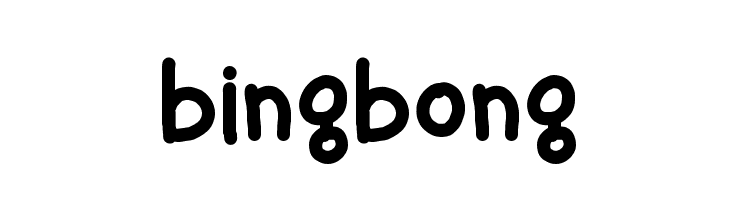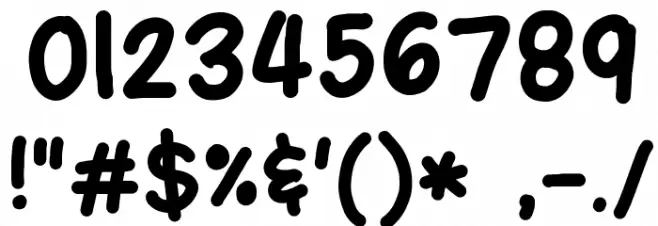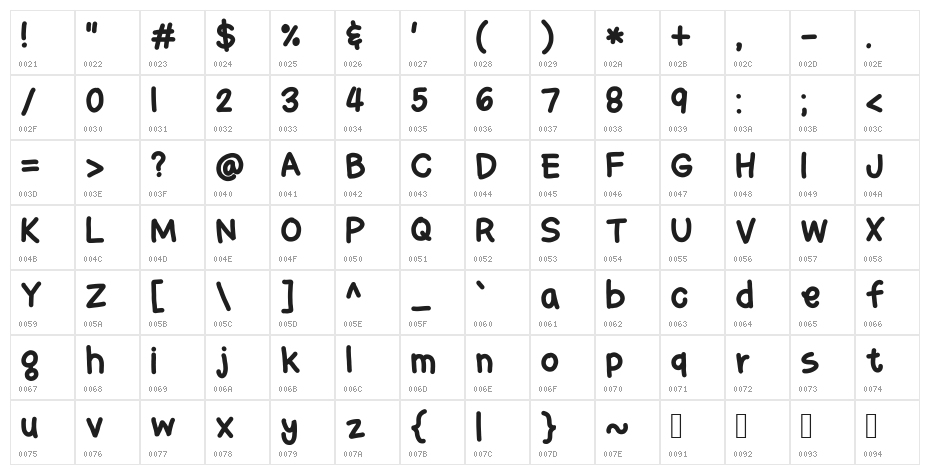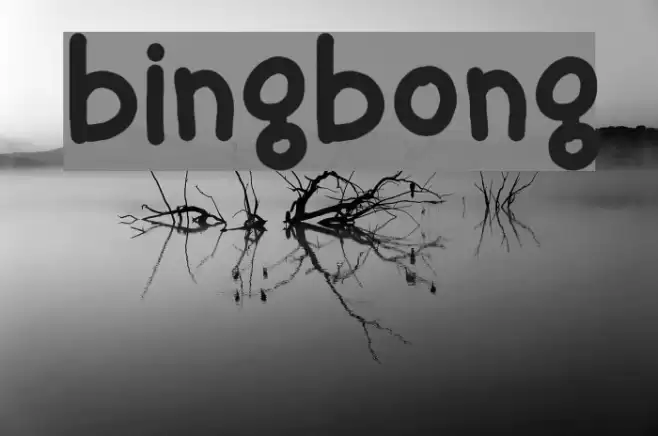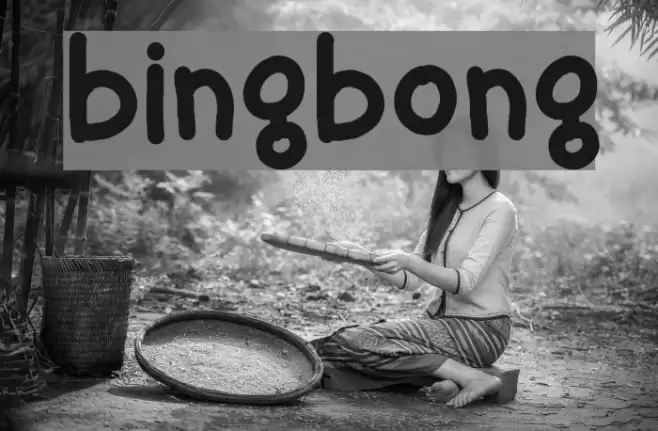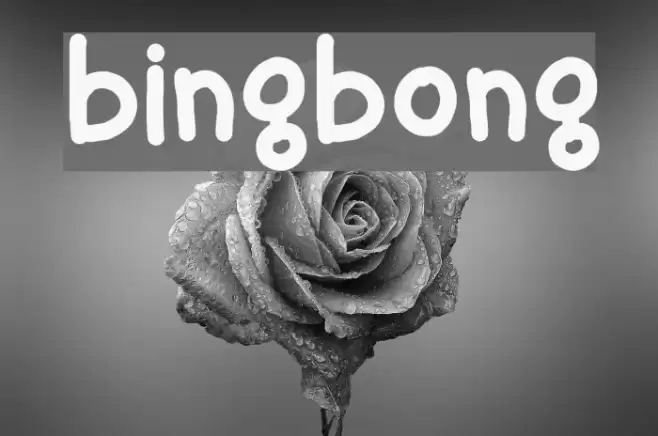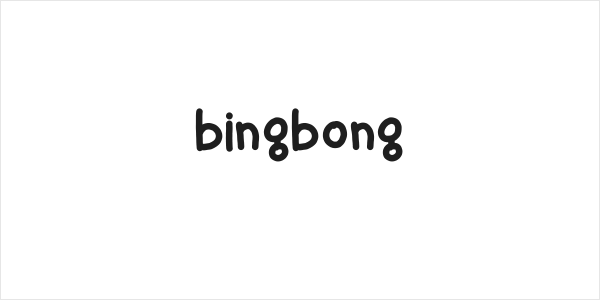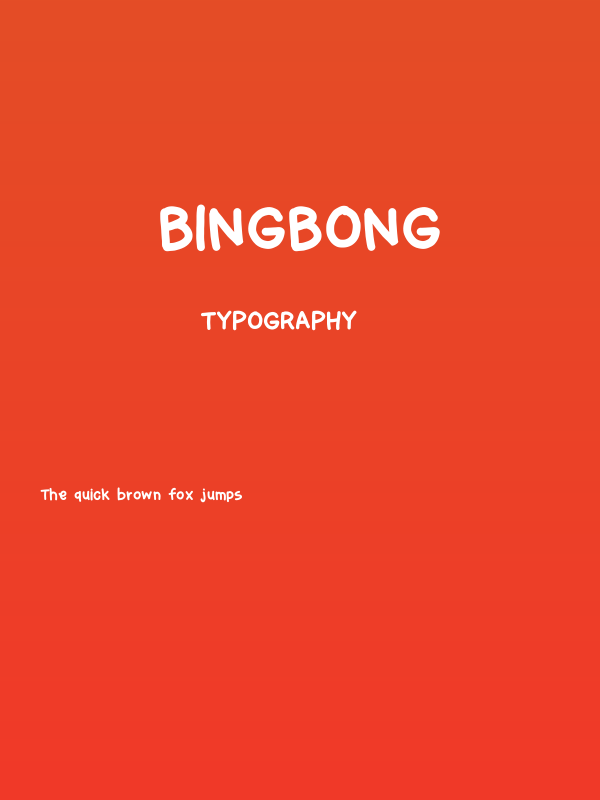
bingbong Font
bingbong Description
This playful and rounded font features a casual, handwritten style that exudes a sense of fun and approachability. The characters are bold and slightly irregular, giving them a whimsical and friendly appearance. The strokes are thick and consistent, with a smooth flow that enhances readability. This font is perfect for projects that require a touch of personality and informality, such as children's books, playful branding, or casual invitations. Its unique style makes it stand out while remaining legible and engaging.
| Proposed Projects | Ideal for children's books, playful branding, casual invitations, and informal designs. |